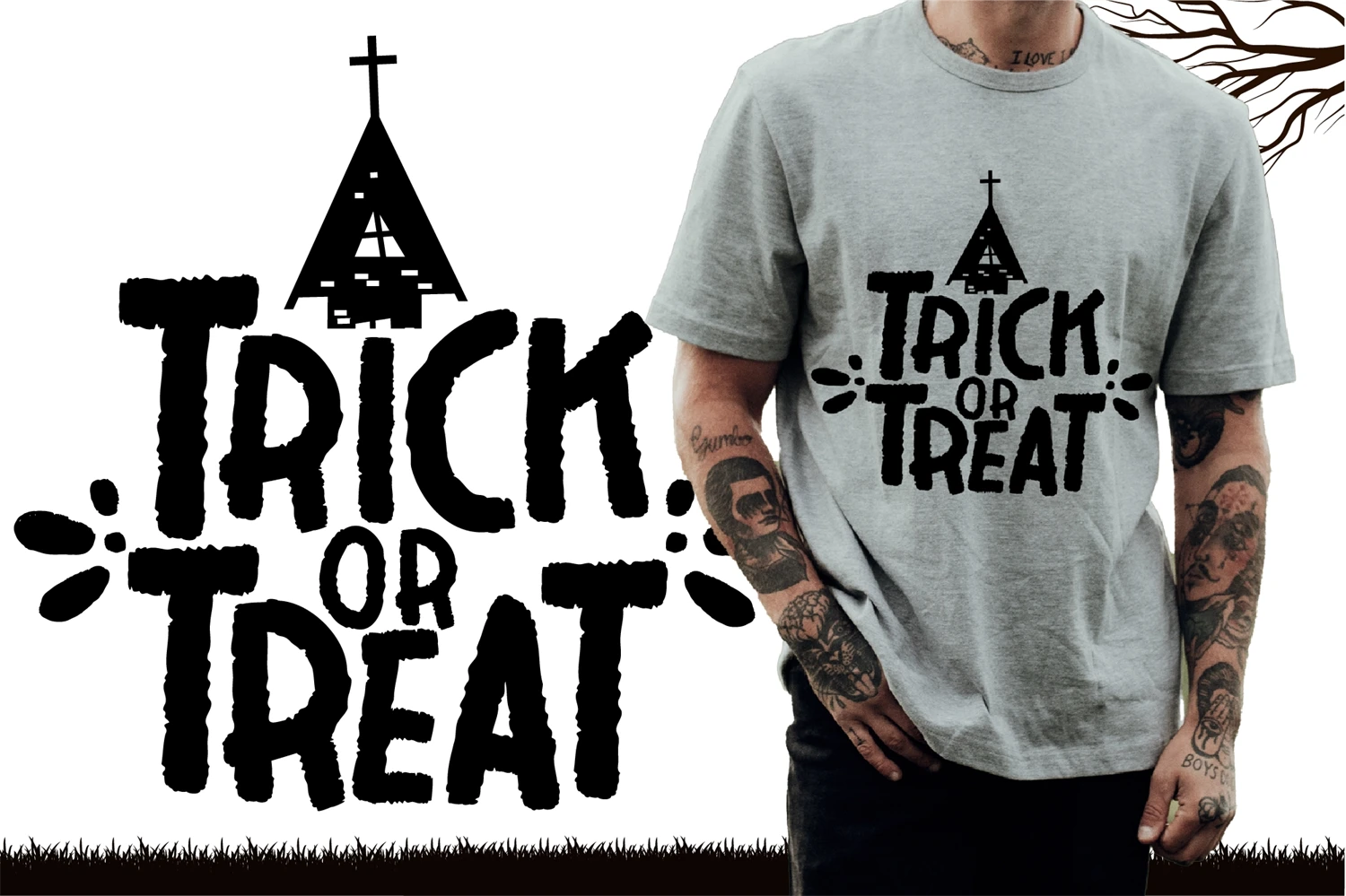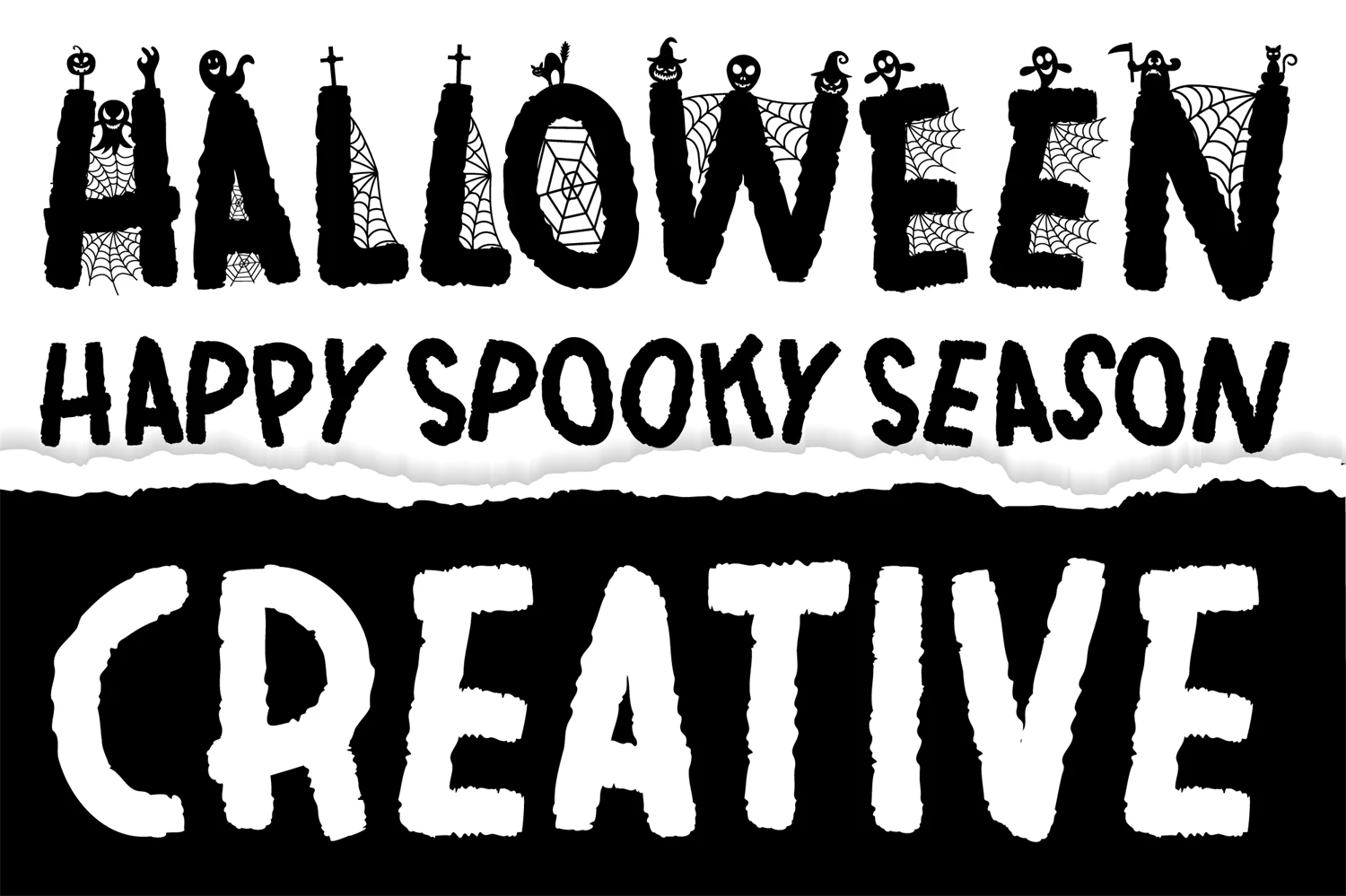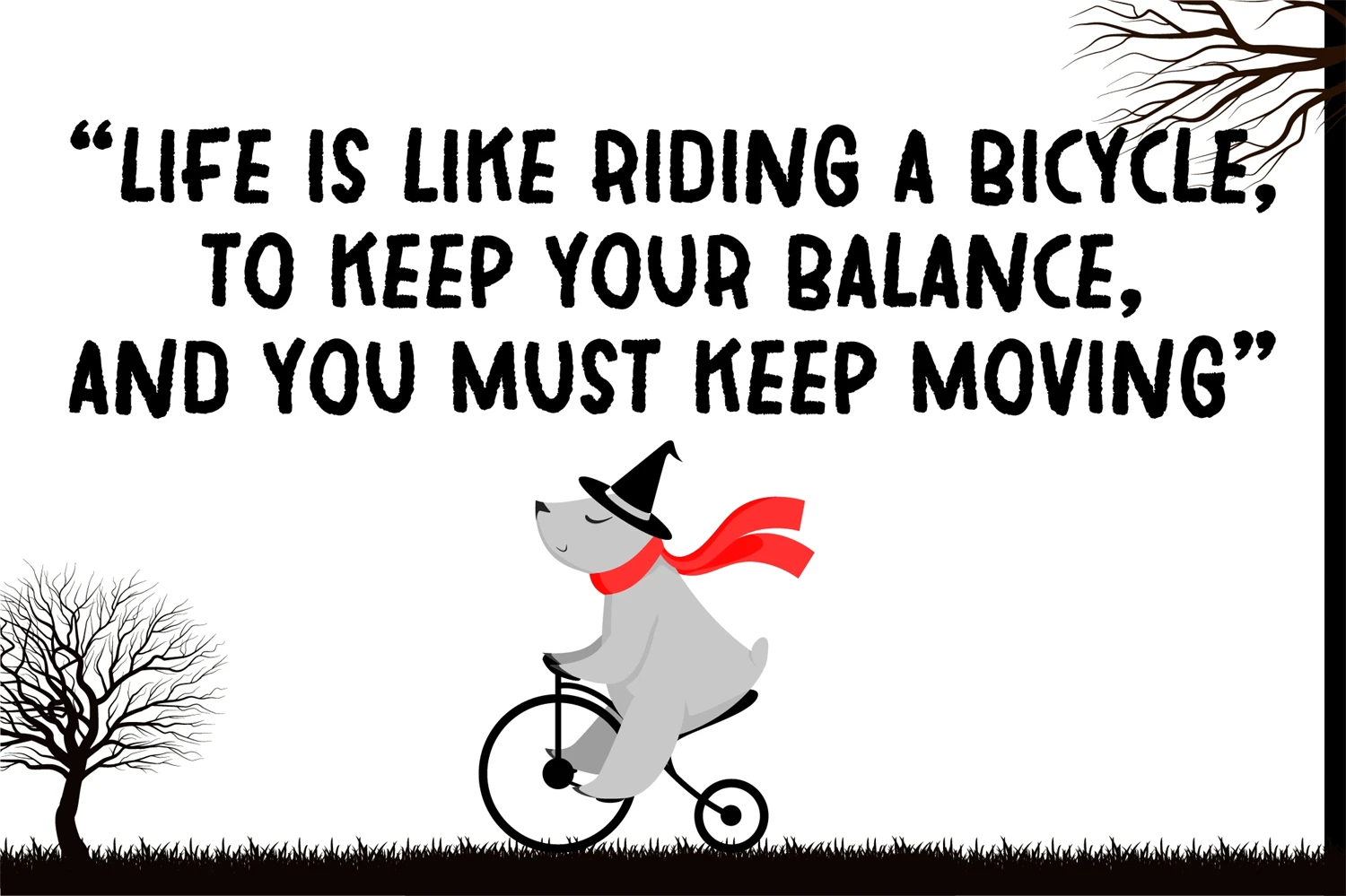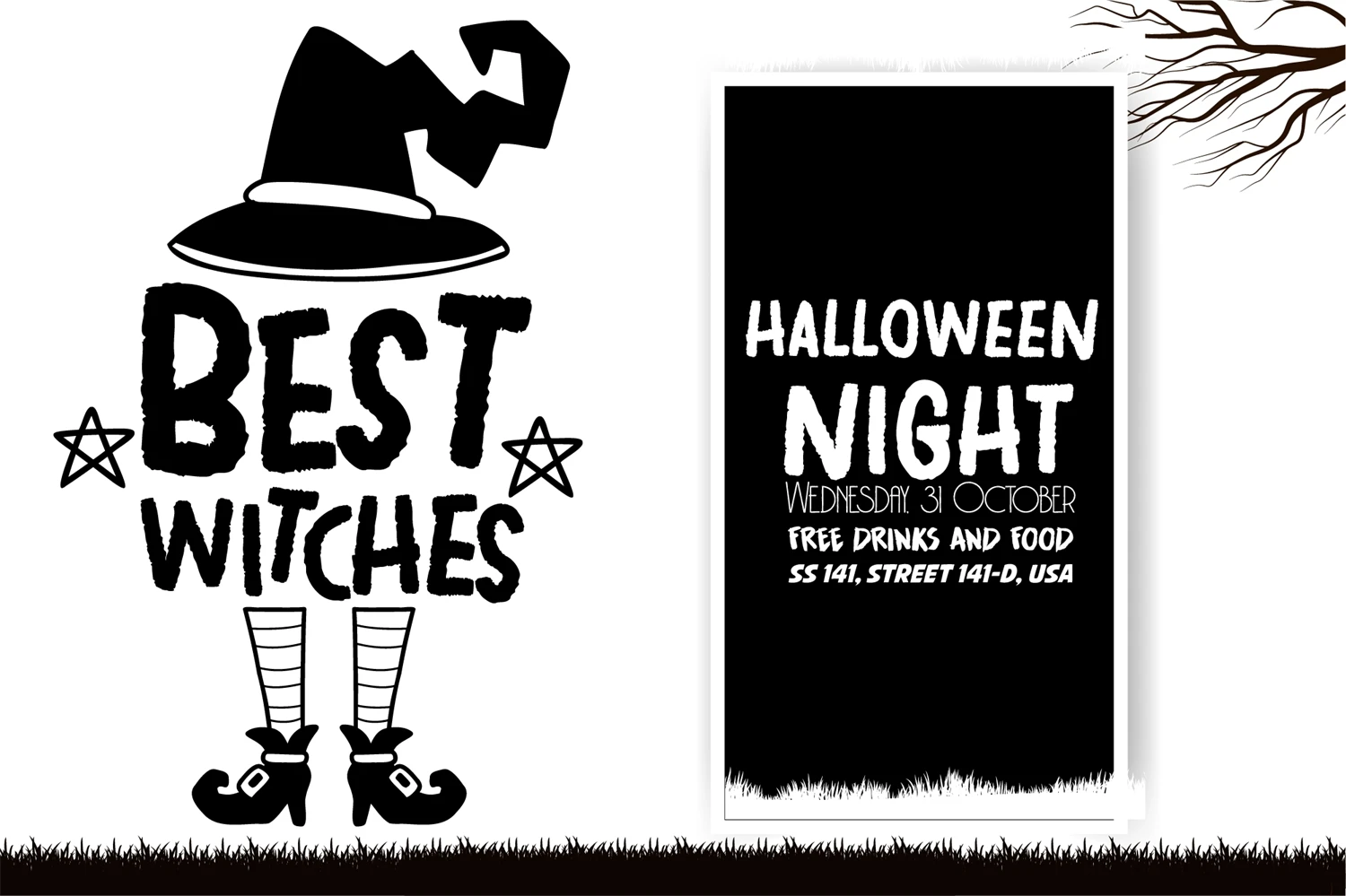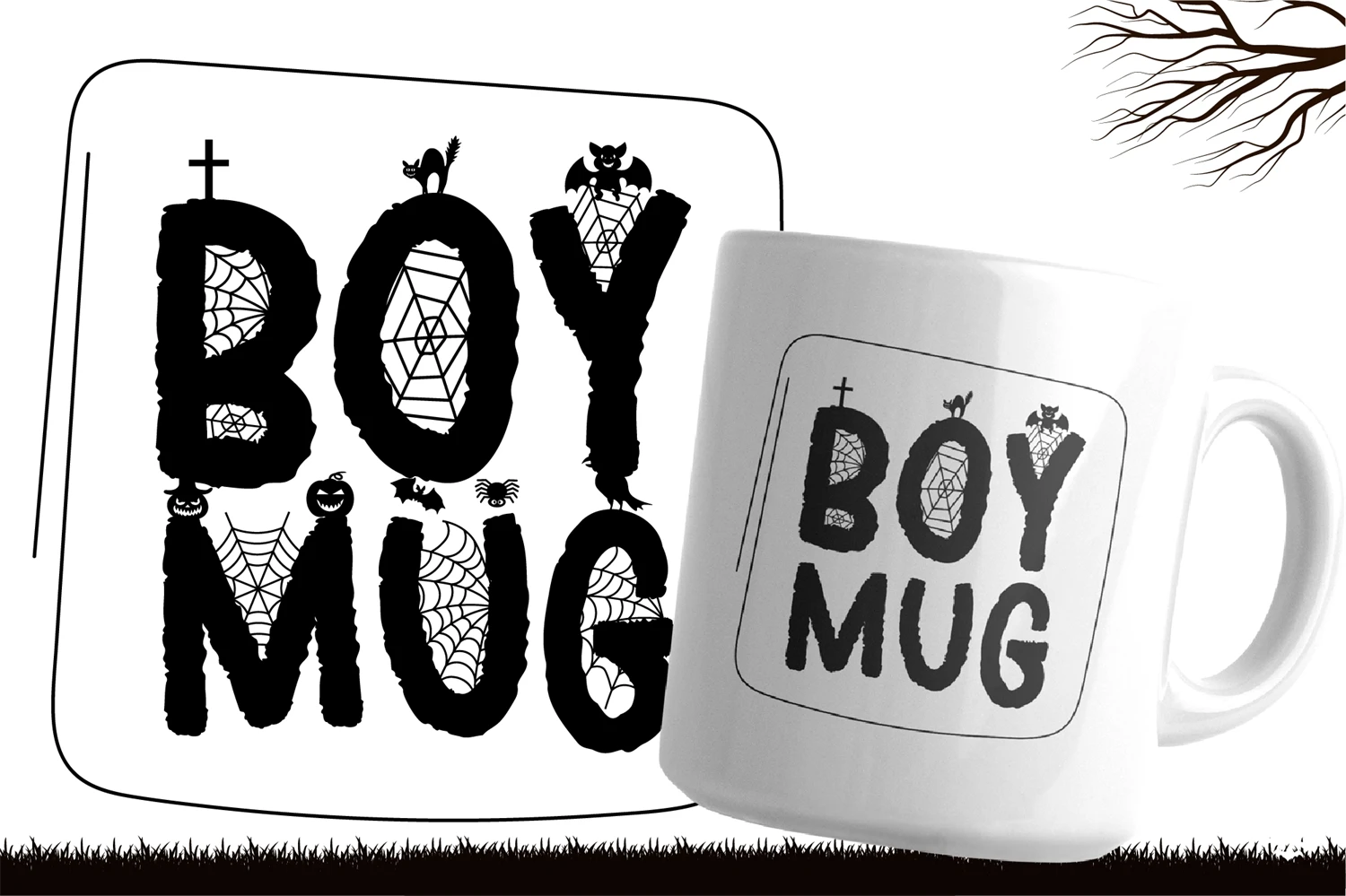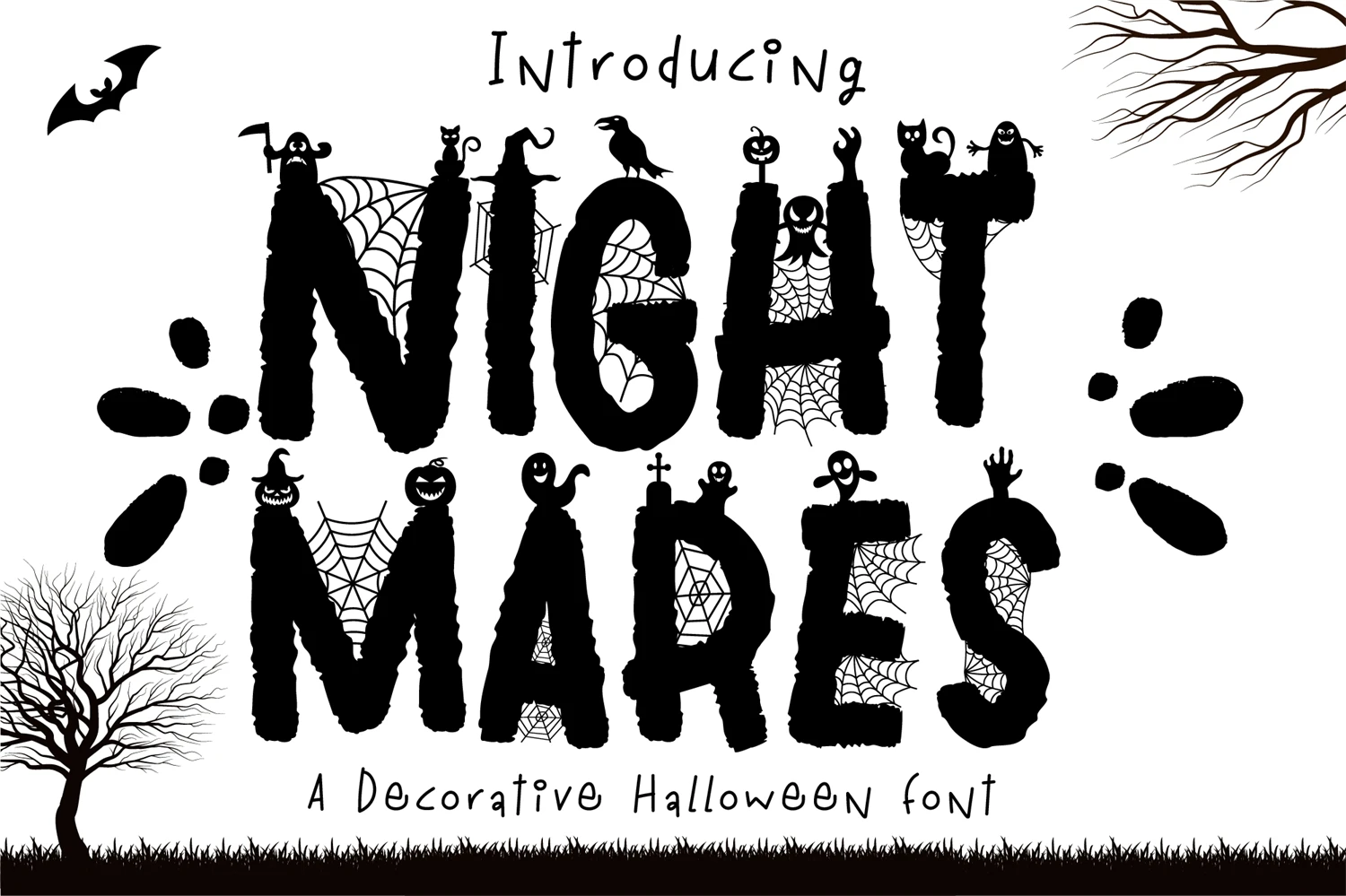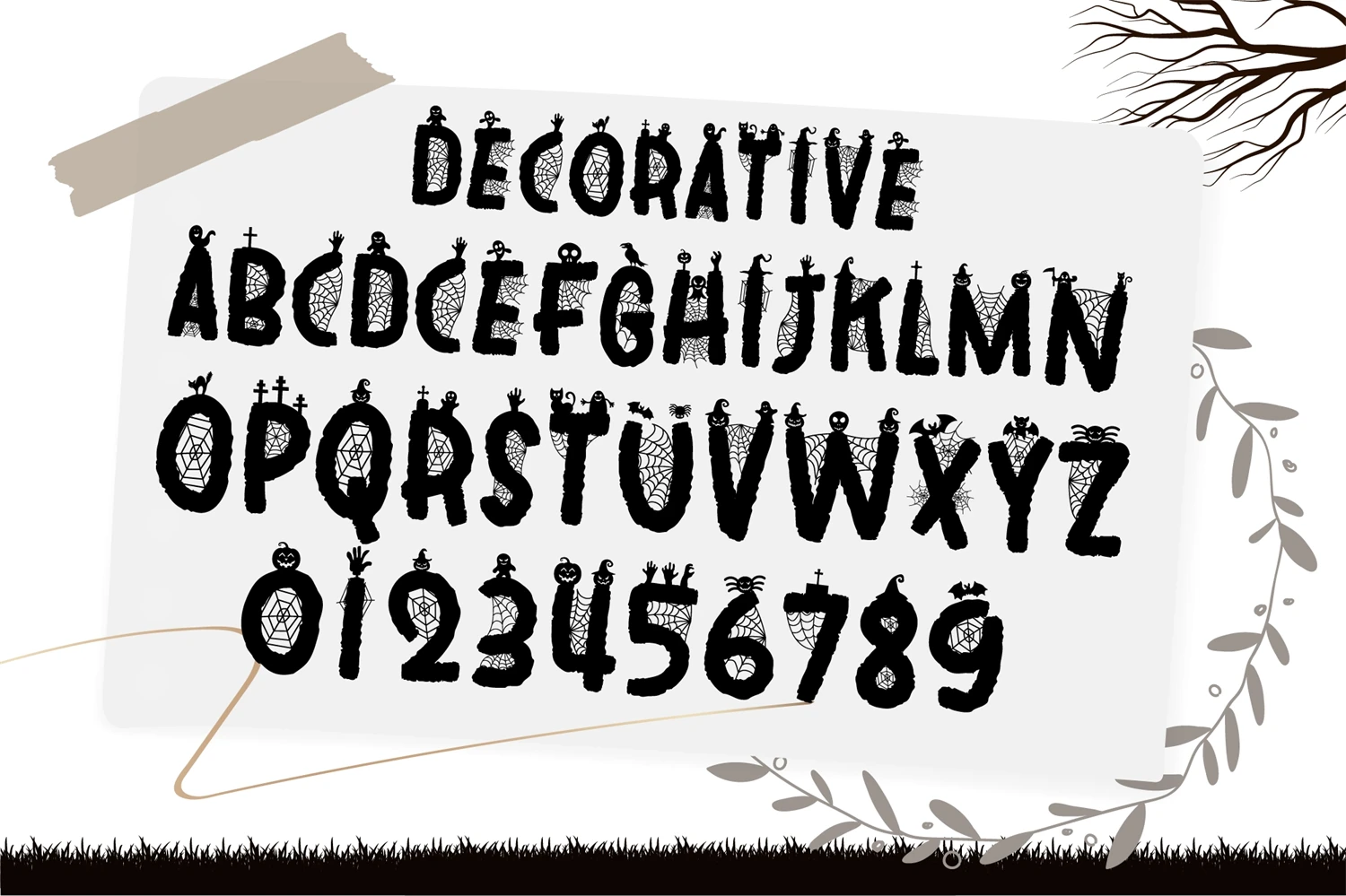
Night Mares Font
Experience the enchantment of Halloween with Night Mares a mesmerizing duo font that weaves elegance and minimalism into the spooky season. This font brings a touch of eerie sophistication to your designs, whether its haunted invitations or modern posters. Unleash the magic of Night Mares and let it create a bewitching atmosphere for your Halloween creations.